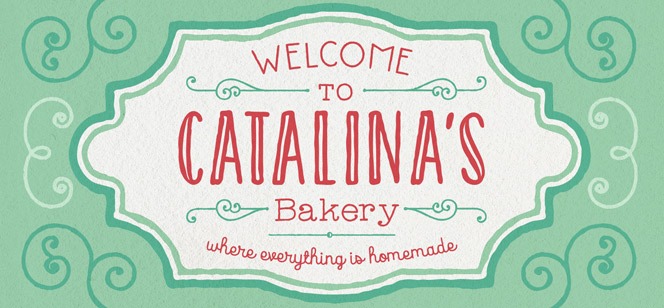
Catalina font
Catalina font by Kimmy Kirkwood (Kimmy Design type foundry) is a prolific family offering handmade organic looking full-blooded lettering. Catalina font family is inspired by a charming bakery in Newport Beach, CA with its handwritten menus, chalkboards and wall quotes. Catalina typeface comes in 7 variations (5 fonts in at least 3 weights each, plus 2 ornamental fonts). It features condensed Sans Serif, Slab Serif, and script faces, with a strongly pronounced hand-drawn trembling and a pleasant art deco reminiscence. Excellent for branding, packages, logos, etc., wherever a personal, unique and organic message is needed, or just in case of hunger for a wholegrain letterfood. Follows a brief description of the delicacies that can be found in the Catalina’s font bakery:
Catalina Anacapa: All-caps low stroke contrast slender Sans and Slab Serif types providing 3 weights each (Light, Regular, and Bold), contextual alternates with 3 options for each letter, stylistic alternates for some of them (A, K, P, Q, R, Y), and also a Small Caps set.
Catalina Avalon: Similar to Anacapa, but featuring high stroke contrast. Same font structure (Sans & Slab Serif, weights, and OpenType options) plus two inline versions – Avalon Sans Inline and Avalon Slab Inline.
Catalina Clemente: A geometric Sans Serif with more standard width designed for use in paragraph text but also suits headlines. It contains All Caps and lowercase, upright and custom italics, and 3 OpenType alternates for each letter.
Catalina Script: A flourish handwritten cursive adding grace and attraction – the “bonne odeur” making the Catalina font a real “boulangerie”. It offers contextual alternates (2 forms for each letter), stylistic alternates, special ligatures, and titling alternates for each capital letter.
Catalina Typewriter: Similar to Clemente this typewriter Serif is designed for paragraph text but it’s just as suitable for headlines. It offers both upright and custom italics, and 3 contextual alternates for each letter.